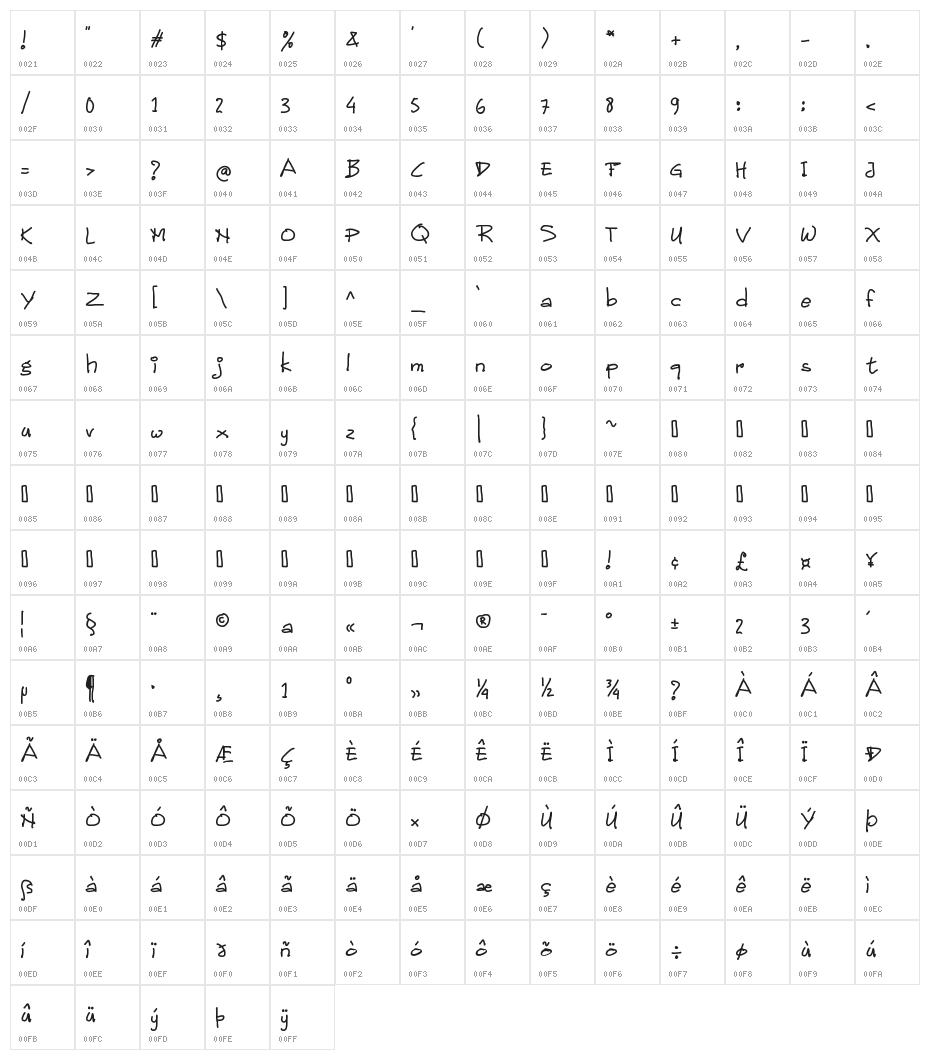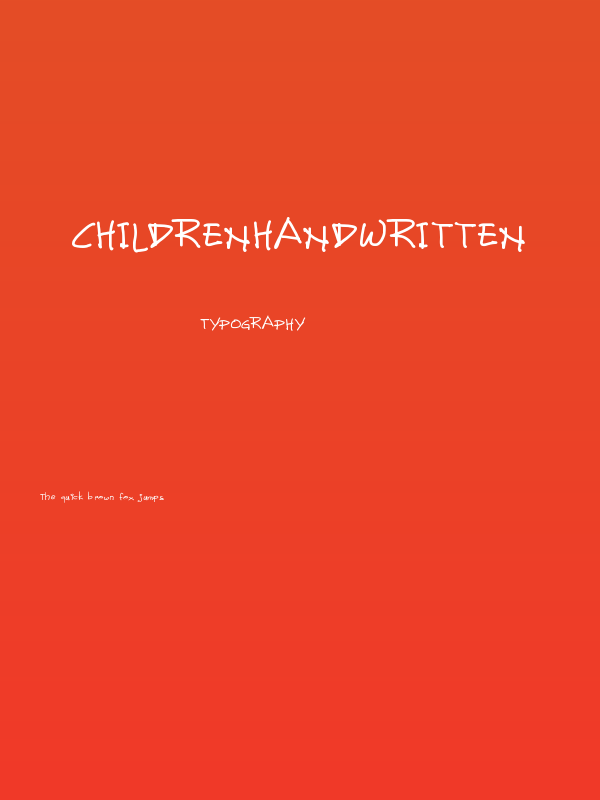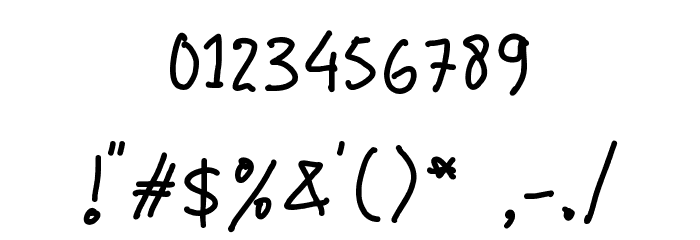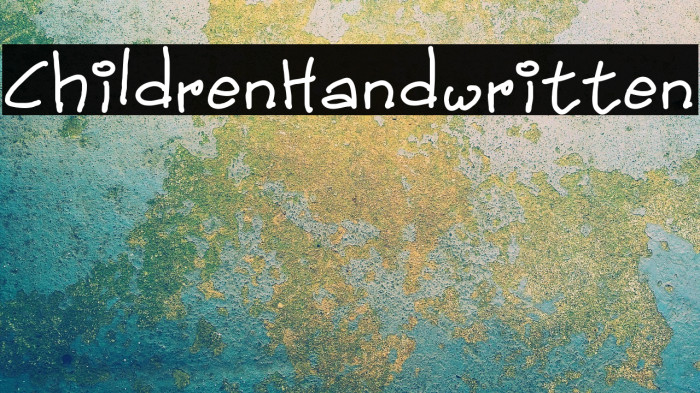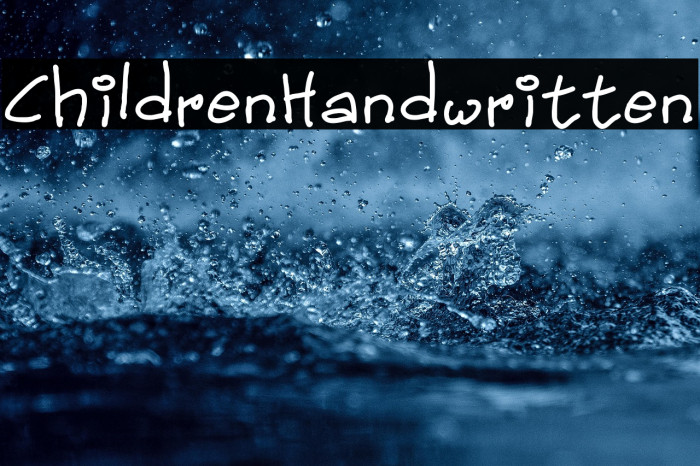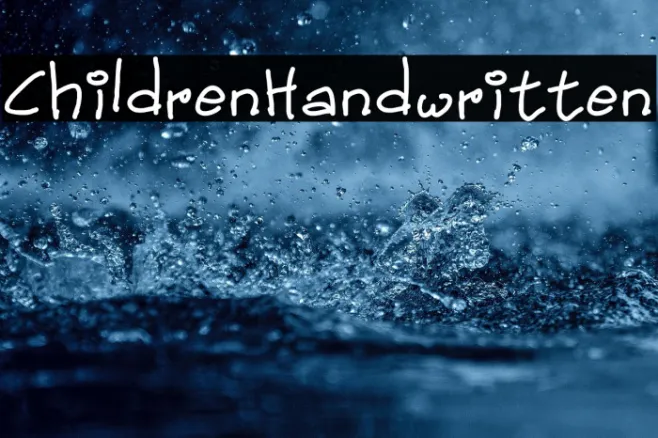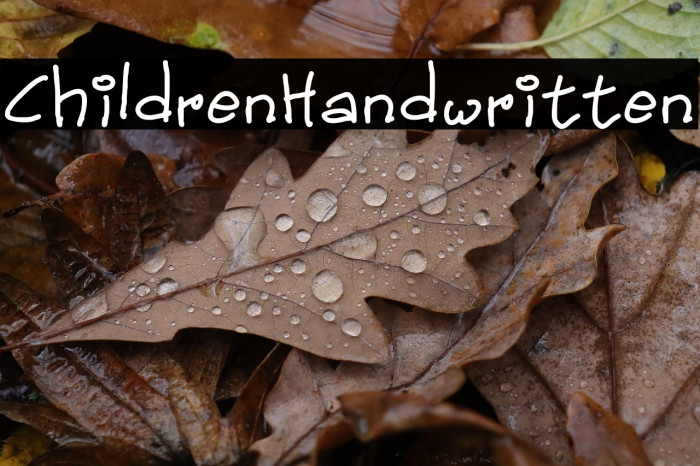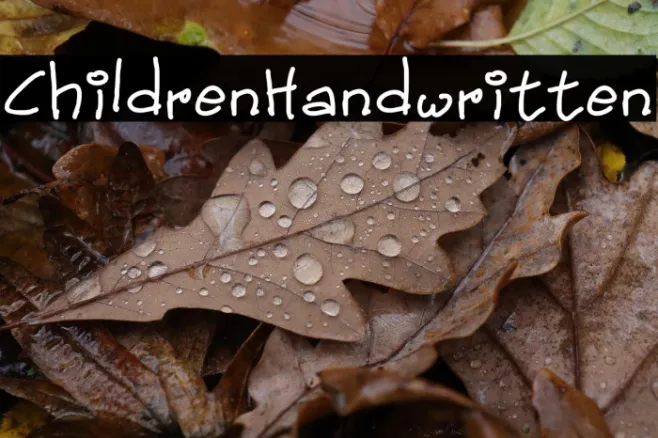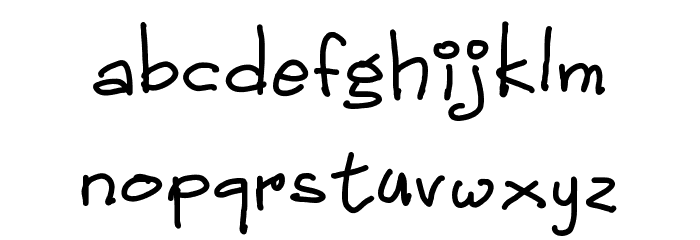
ChildrenHandwritten Font
ChildrenHandwritten Description
This playful and whimsical font captures the essence of a child's handwriting with its irregular strokes and charming imperfections. Each character is uniquely crafted, giving a sense of authenticity and spontaneity. The letters are slightly slanted, with varying heights and widths, creating a lively and dynamic appearance. The font maintains a consistent line weight, which adds to its legibility while preserving the handwritten feel. The numbers and special characters are equally expressive, complementing the overall style. This font is perfect for projects that require a touch of innocence and creativity.